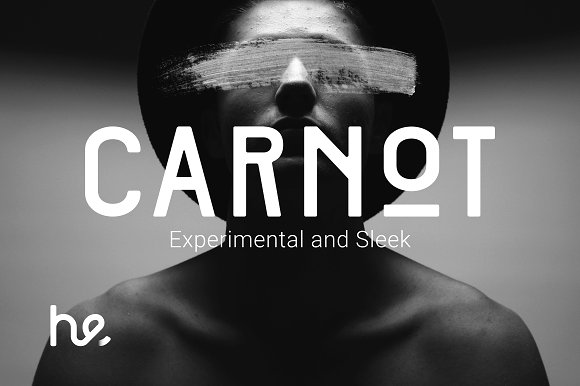
Carnot Font: A Modern Grotesk Typeface by Hederae Type Foundry
The world of typography has witnessed a significant transformation over the years, with the emergence of various font styles and typefaces. One such notable addition is the Carnot font, a modern grotesk typeface created by the renowned Hederae Type Foundry. This font has been making waves in the design community for its unique blend of boldness and elegance, making it a popular choice among designers and typographers.
The Genesis of Carnot Font
The Carnot font is a product of the Hederae Type Foundry, a well-known entity in the world of typography. The foundry is recognized for its innovative approach to typeface design, and the Carnot font is no exception. This modern grotesk typeface was designed to cater to the needs of contemporary designers who seek a font that is both strong and elegant.
Key Features of Carnot Font
The Carnot font boasts several key features that set it apart from other typefaces. Some of its notable characteristics include:
• Geometric Design: The Carnot font features a geometric design, which gives it a modern and sleek appearance.
• Bold and Elegant: The font strikes a perfect balance between boldness and elegance, making it suitable for a wide range of design applications.
• Strong Lines: The Carnot font features strong lines and precise curves, which contribute to its geometric appeal.
• Versatile: The font is versatile and can be used in various design contexts, including headings, titles, and body text.
What Makes Carnot Font Stand Out?
The Carnot font has several distinctive features that make it stand out from other typefaces. Some of the factors that contribute to its uniqueness include:
• Unique Letterforms: The Carnot font features unique letterforms that are both geometric and elegant.
• Wide Range of Weights: The font comes in a range of weights, making it suitable for various design applications.
• Excellent Legibility: The Carnot font is designed to be highly legible, even at small font sizes.
Design Applications of Carnot Font
The Carnot font is a versatile typeface that can be used in various design applications. Some of the contexts where this font can be effectively used include:
• Headings and Titles: The Carnot font is ideal for headings and titles, where its bold and elegant features can be fully utilized.
• Branding and Advertising: The font can be used in branding and advertising campaigns to create a strong and memorable visual identity.
• Packaging Design: The Carnot font can be used in packaging design to create eye-catching and informative labels.
• Digital Media: The font can be used in digital media, including websites, social media, and mobile apps.
Typography Tips for Using Carnot Font
To get the most out of the Carnot font, here are some typography tips to keep in mind:
• Pair with Simple Backgrounds: The Carnot font works best with simple backgrounds that do not compete with the bold and elegant features of the font.
• Use in Combination with Other Fonts: The font can be used in combination with other fonts to create a visually appealing typographic hierarchy.
• Experiment with Different Weights: The Carnot font comes in a range of weights, so experiment with different weights to find the one that works best for your design.
The Carnot font is a modern grotesk typeface that has made a significant impact in the world of typography. Its unique blend of boldness and elegance makes it a popular choice among designers and typographers. With its geometric design, strong lines, and precise curves, the Carnot font is ideal for a wide range of design applications. Whether you’re a designer, typographer, or simply a font enthusiast, the Carnot font is definitely worth exploring.